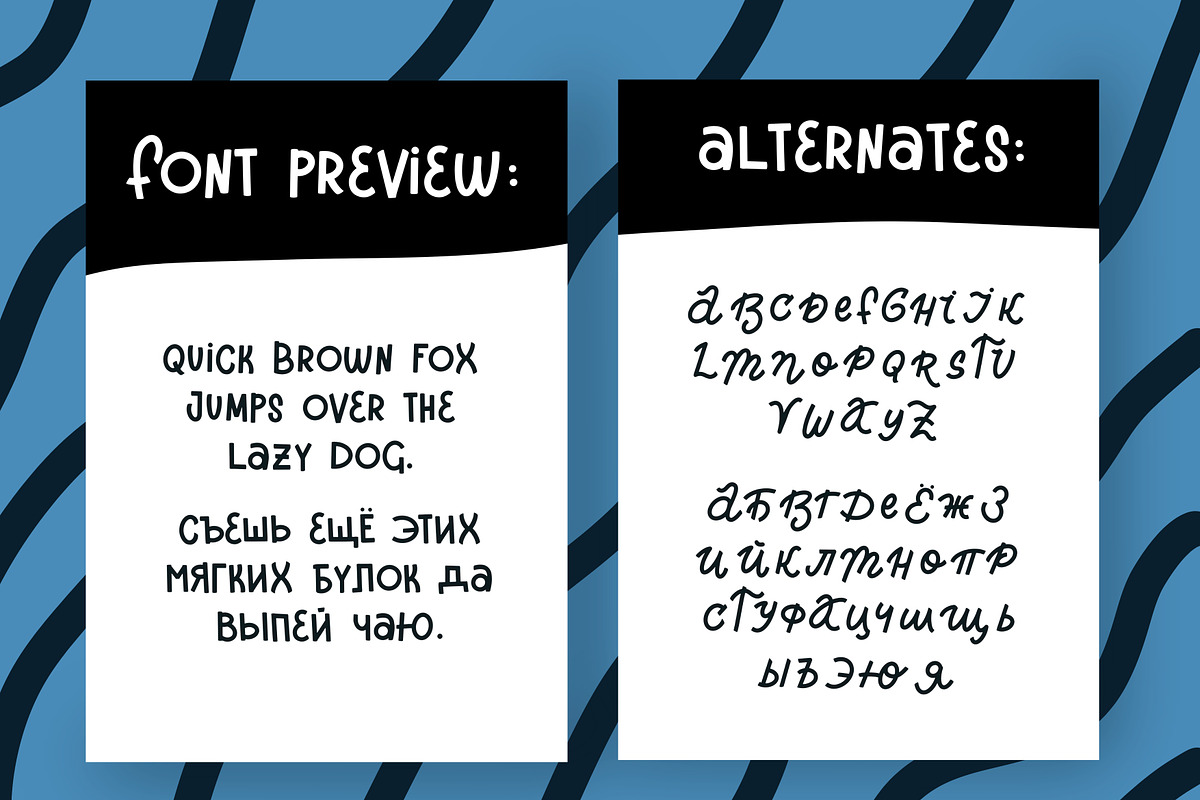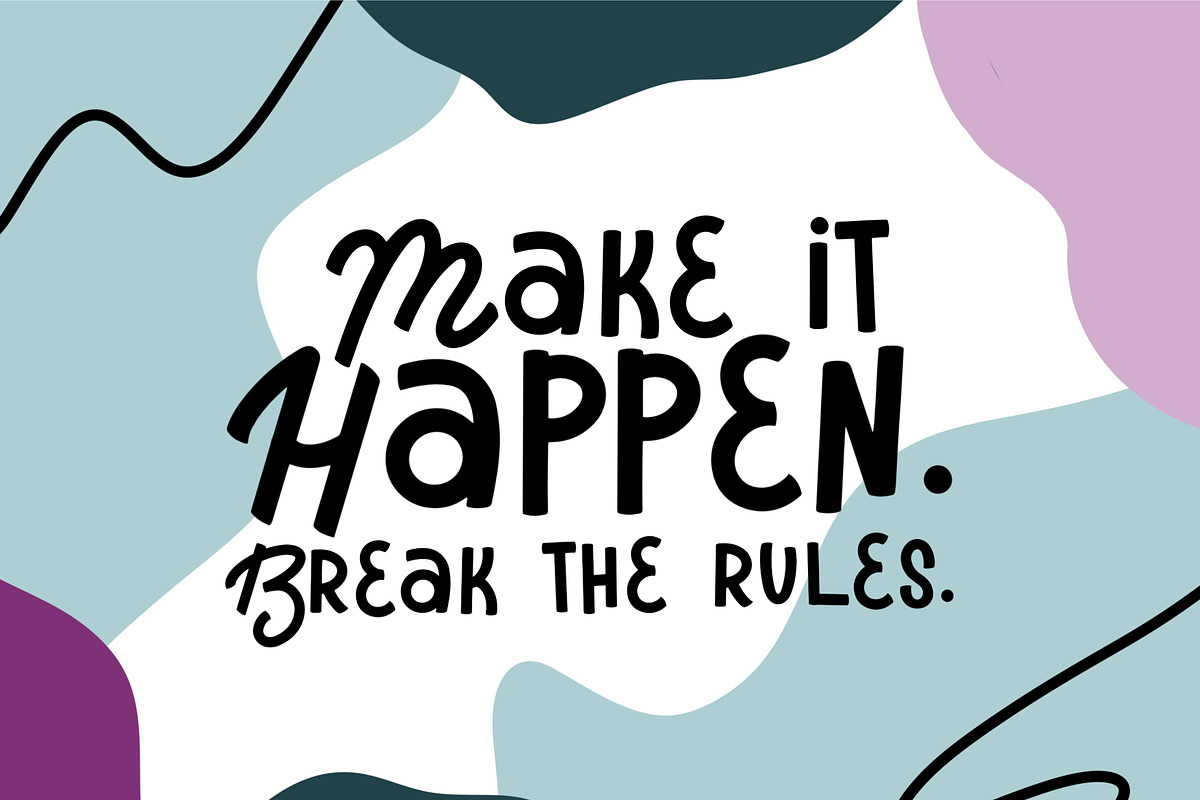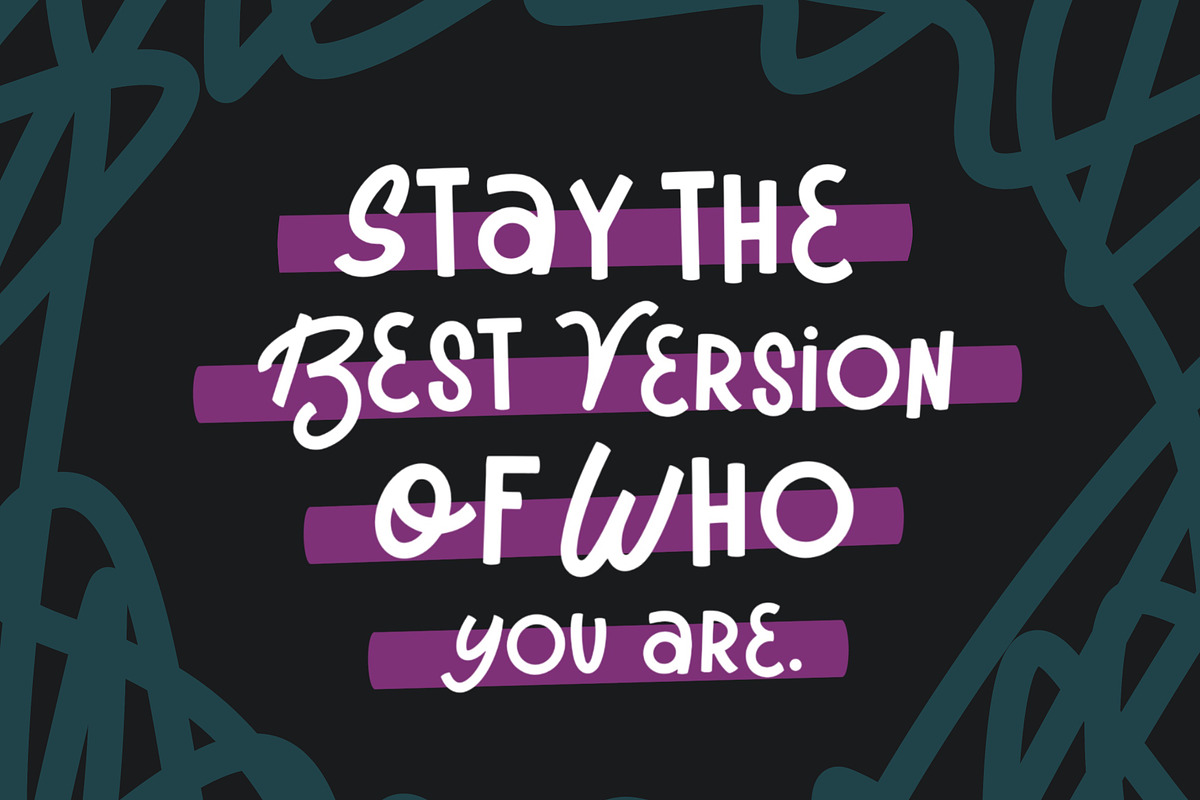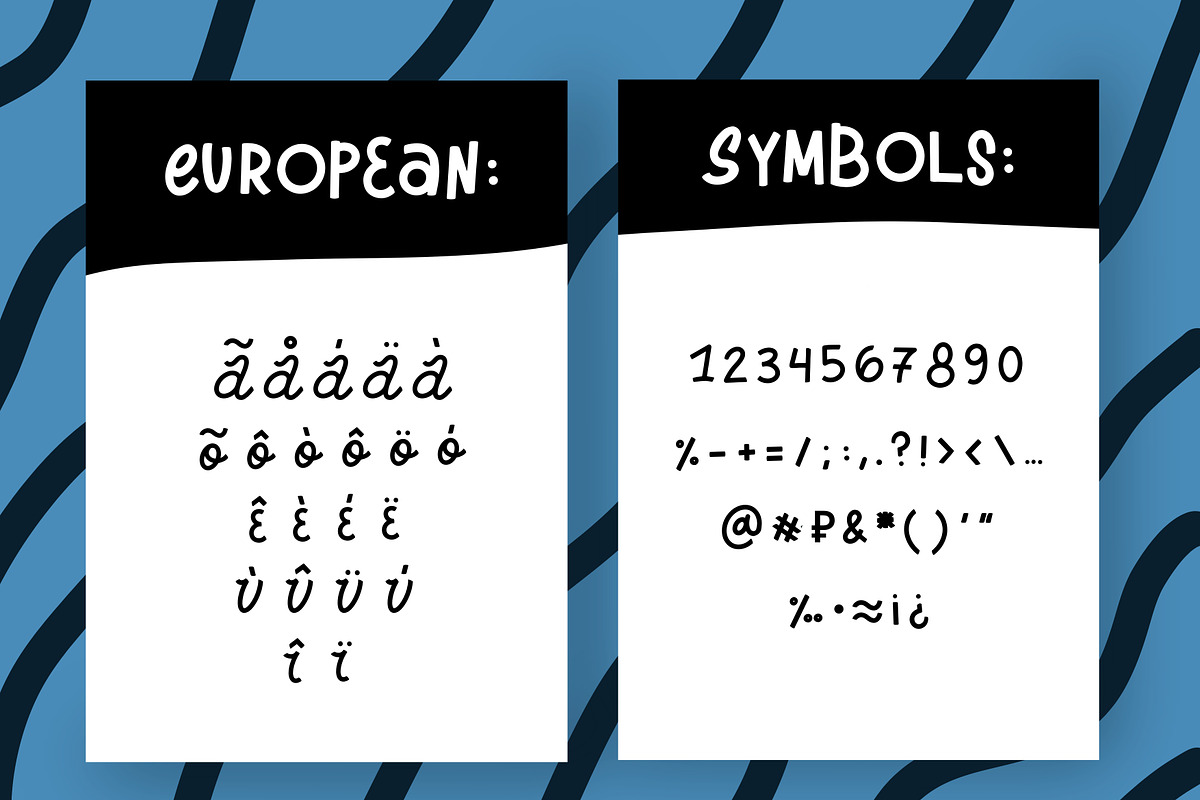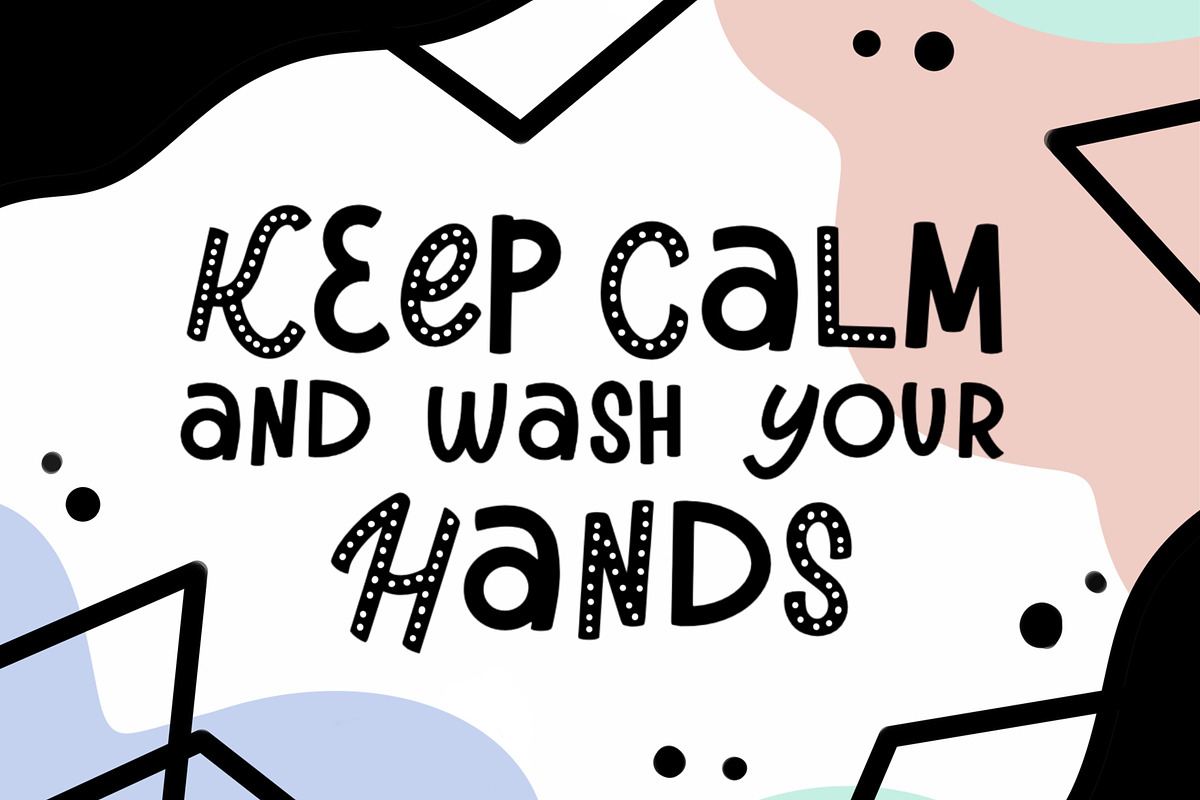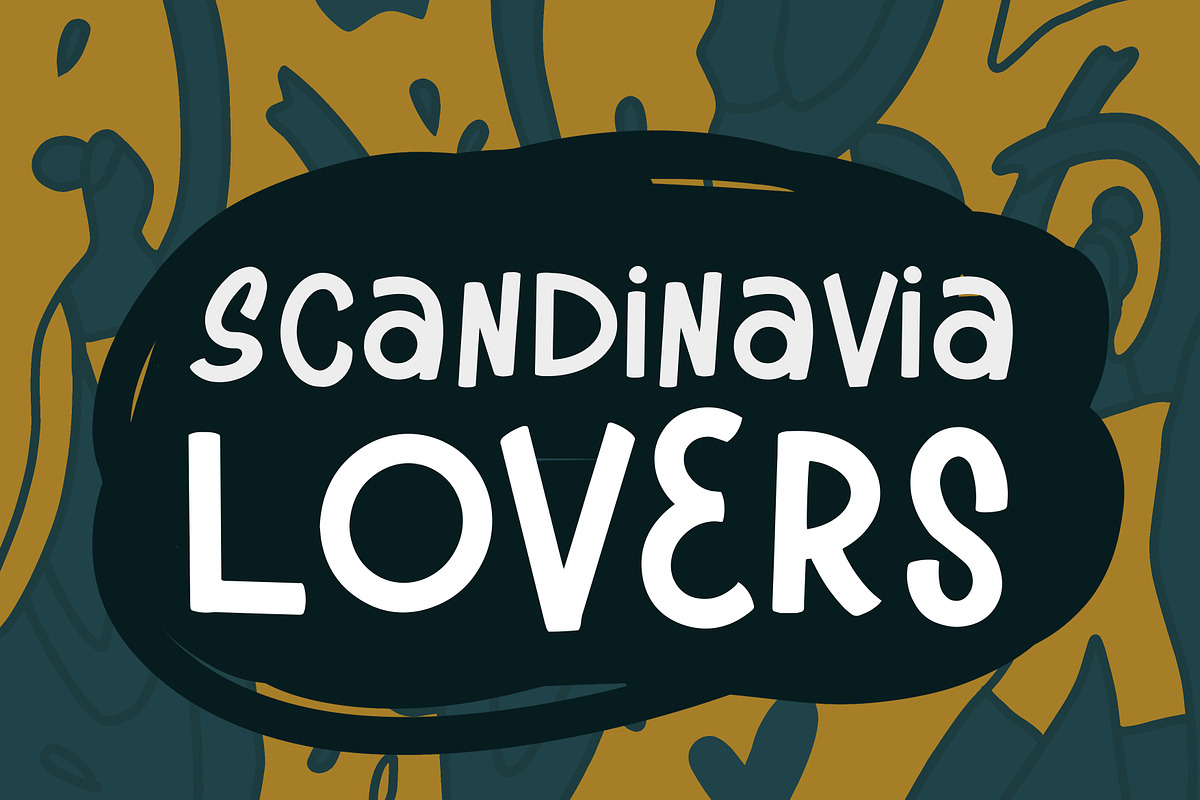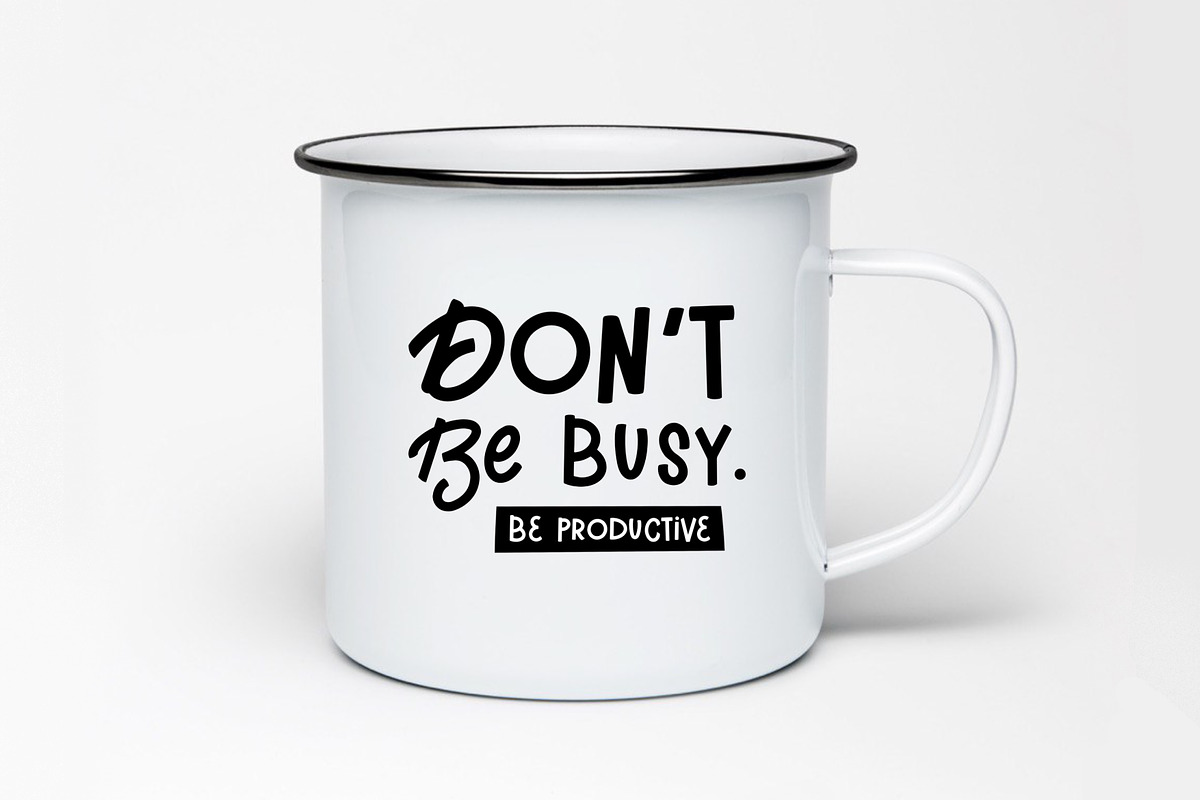
Malmo - Scandinavian duo Font
Hello! I'm very happy to present my display duo font Malmo! A trendy, alternative font, looks gorgeous on logos, websites, invitations, greeting cards, magazines, business cards, packaging and more!
Malmo - Scandinavian duo Font by Marie Smth fits naturally into Branding, posters, packaging, typography.